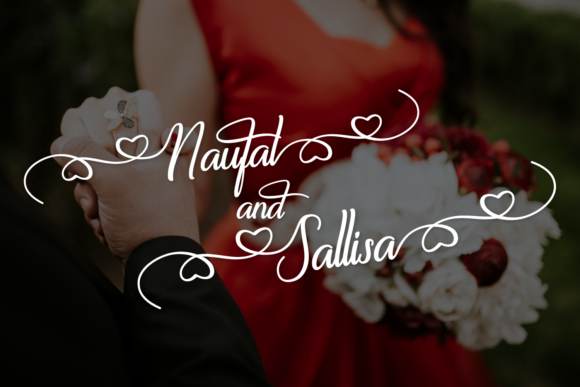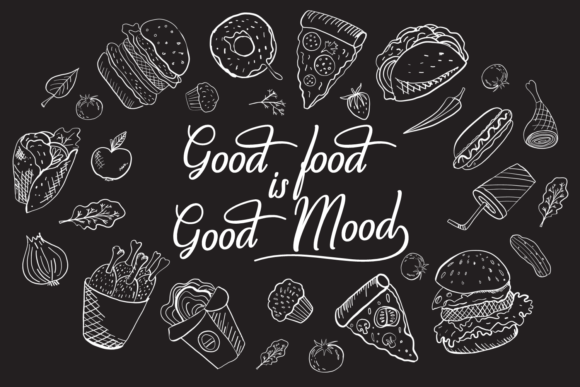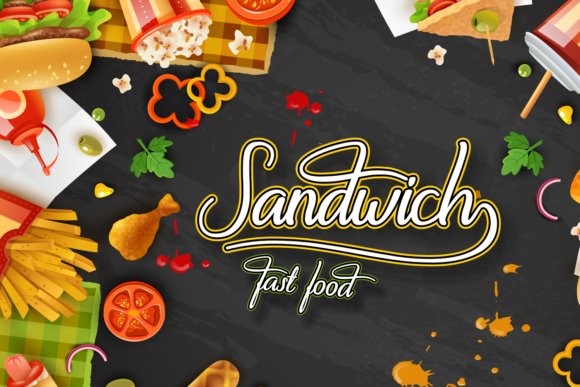
Introduction to Sakilla Font
Sakilla is a sweet and charming script with great legibility, making it a one-of-a-kind crafting font.
Sakilla is a sweet and charming script with great legibility, making it a one-of-a-kind crafting font!
Key Features of Sakilla Font
Why Choose Sakilla Font?
Sakilla Font offers exceptional quality and versatility, making it a valuable addition to your design toolkit. Whether you’re creating for personal projects or commercial use, Sakilla Font delivers professional results.